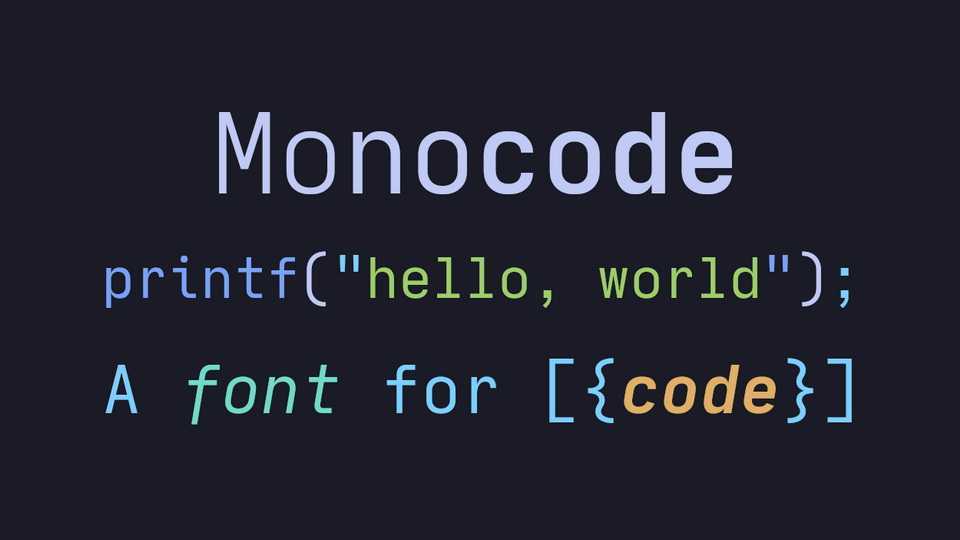
Download Monocode font, a monospaced typeface for code derived from a customized version of Iosevka. Monocode is inspired heavily by JetBrains Mono and Hack with some of my own personal style.
Designer: Aaron Bos